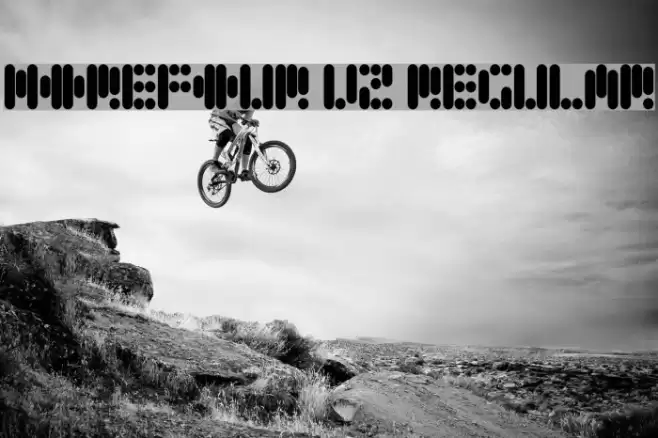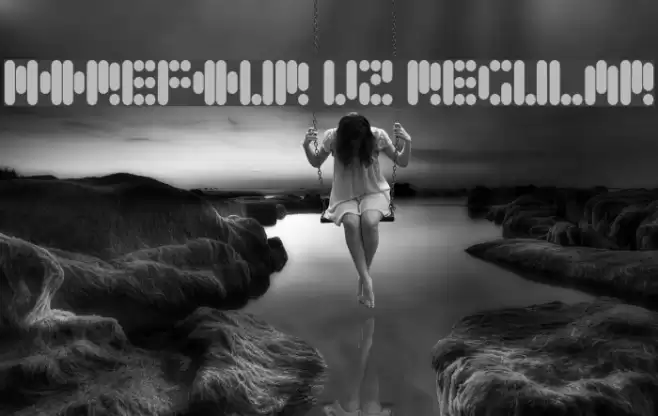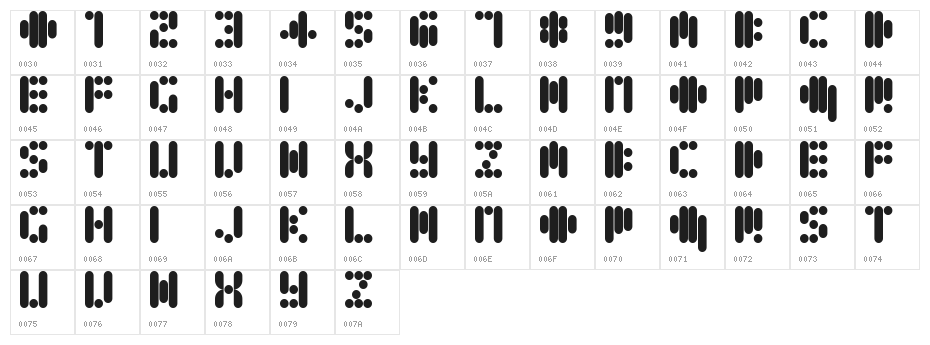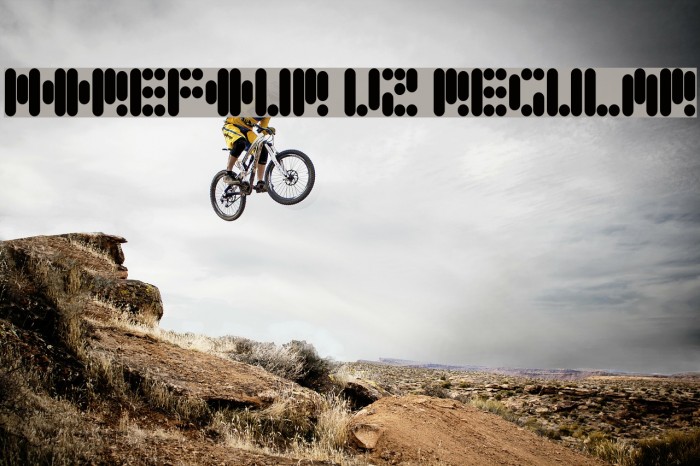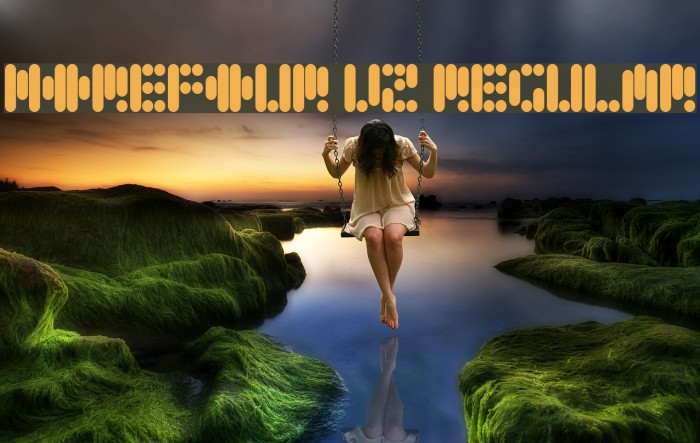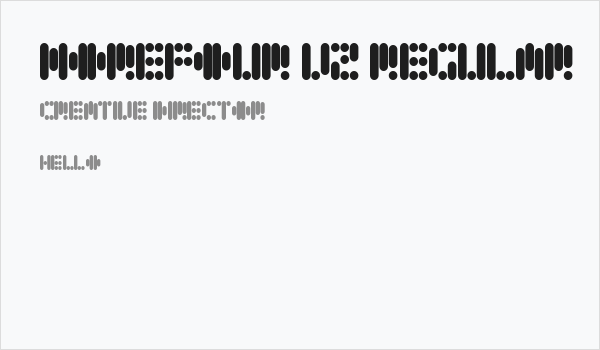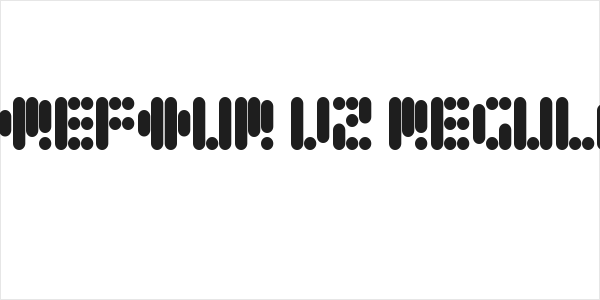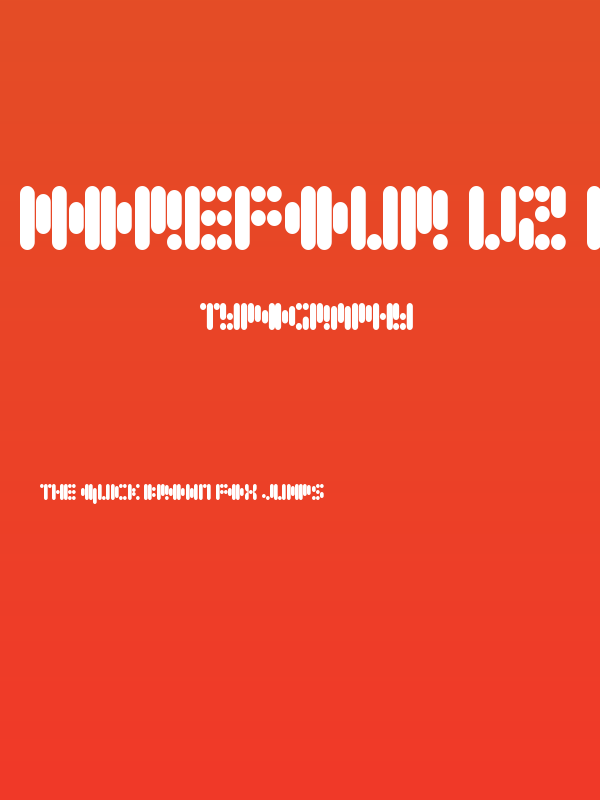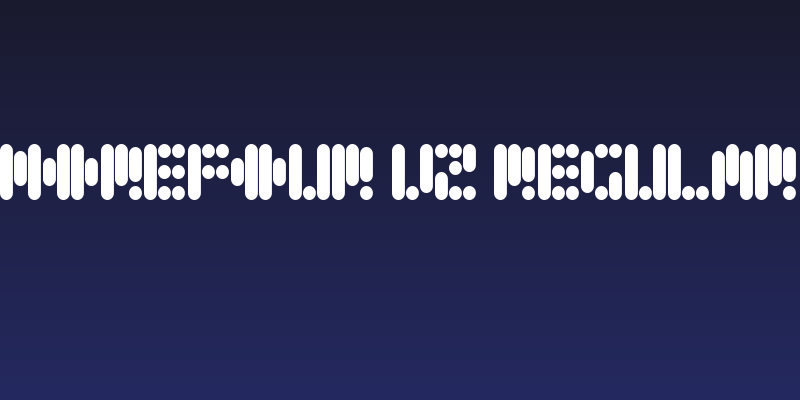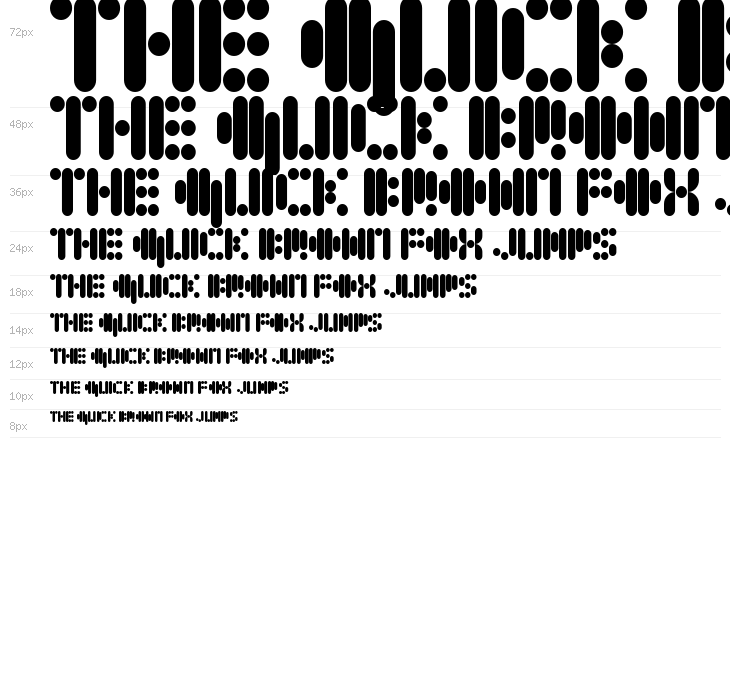
MoreFour v2 Regular Font
MoreFour v2 Regular Description
This font features a unique and modern design characterized by its use of bold, rounded shapes that form each letter. The letters are constructed using a series of dots and vertical bars, creating a digital and futuristic appearance. The consistent use of circular elements gives the font a cohesive and rhythmic look, making it stand out as a decorative choice. The font maintains a uniform weight throughout, with no variation in stroke thickness, contributing to its bold and striking presence. The spacing between characters is tight, enhancing the compact and dense feel of the text. This font is ideal for projects that require a modern and innovative touch, such as technology branding, digital art, or contemporary advertising.
A modern, decorative font with bold, rounded shapes and a digital aesthetic from Uncategorized fonts.
- Proposed Projects: Ideal for technology branding, digital art, contemporary advertising, and innovative design projects.
- Character Spacing: Tight
- Use Case: Logos, Headlines